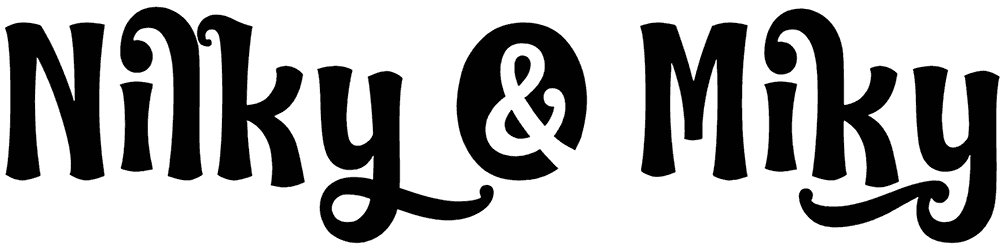
Nilky & Miky Font
Nilky Miky Font
Nilky & Miky is a fancy invitation font that is masterfully crafted with accurate curves and widens the selection range of graphic artists in the middle of designing gift cards, business cards, posters, logos, or book covers. Since its characters are a little bit crooked, this artwork can bring a feeling of playfulness, vivacity, love, or friendliness to your editorial projects.